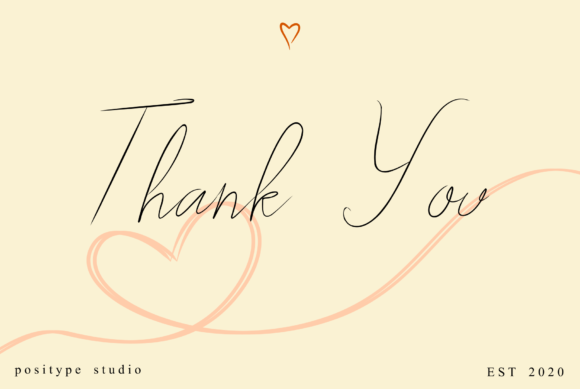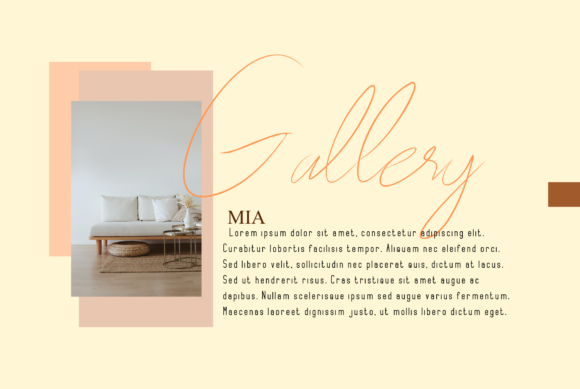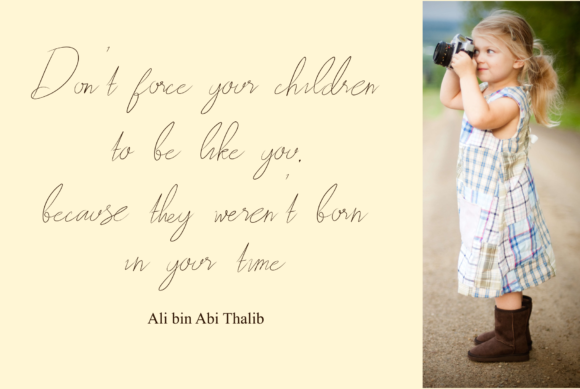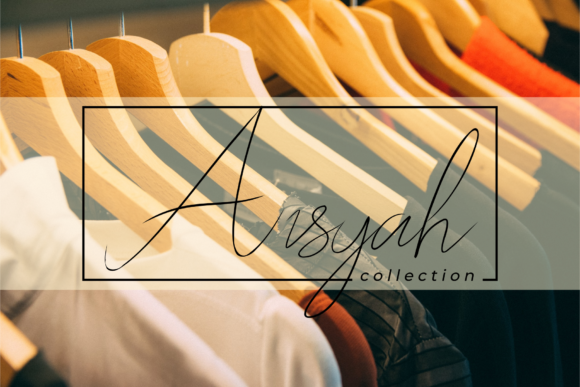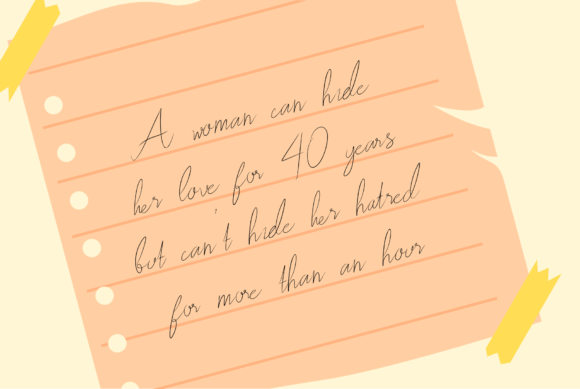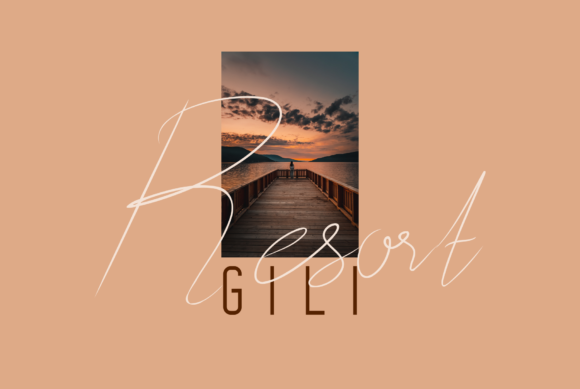
Loving You
About Loving You Font
Loving You is a thin, smooth and delicate handwritten font. It looks beautiful on a variety of designs requiring a personalized style, such as wedding invitations, thank you cards, weddings, greeting cards, logos and so on.